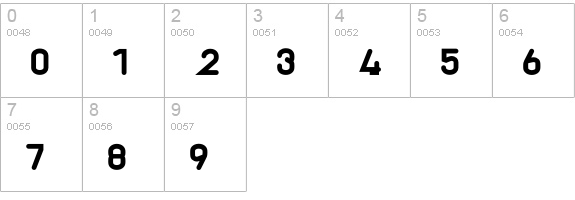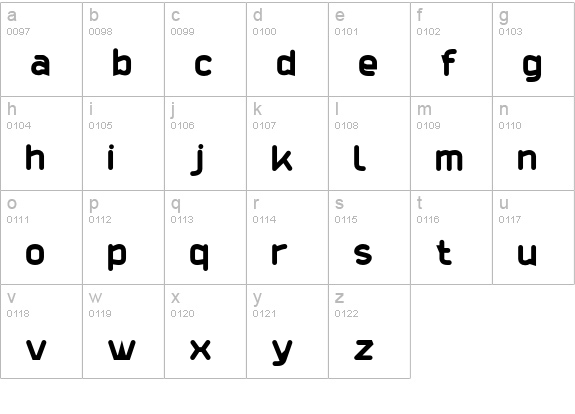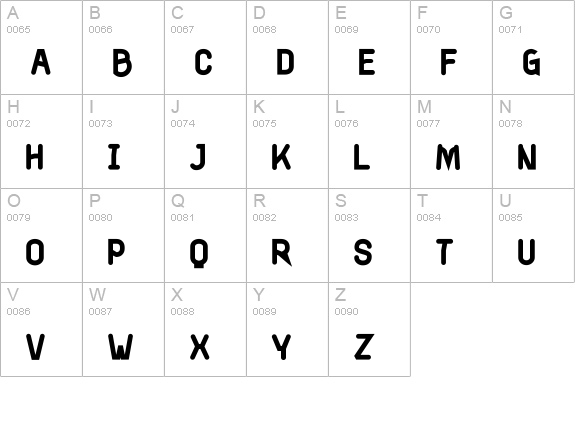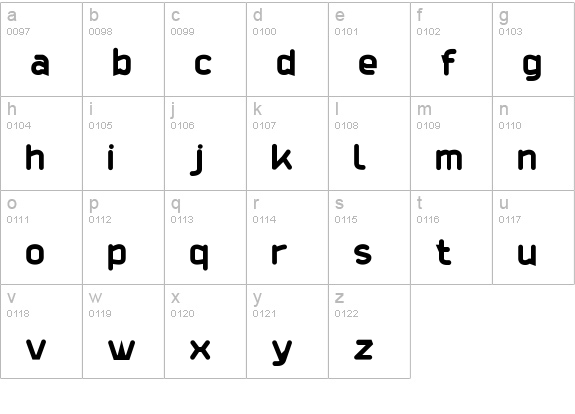
Launderette-Spin Font Details
Introducing the captivating and innovative Launderette-Spin font, a mesmerizing typeface that brings a delightful spin to your design projects. With its unique and quirky design, this font adds a touch of playfulness and vibrancy to any creative endeavor. Launderette-Spin font is not just visually appealing, but also offers a seamless reading experience. Each letter is carefully crafted with intricate details, ensuring legibility without compromising on its distinct personality. Whether used for headlines, logos, posters, or any other design element, this font effortlessly grabs attention and leaves a lasting impression. What sets Launderette-Spin font apart is its versatility. Its dynamic and animated appearance adds a sense of movement and energy to your designs, making them come alive. This font is perfect for projects that require a modern and fresh approach, as it effortlessly captures the essence of contemporary design trends. One of the most enticing aspects of Launderette-Spin font is that it is freely available to download at FontsMarket.com. This means that you can easily access this remarkable typeface and enhance your creative projects without any hassle. Whether you are a professional designer, a student, or simply someone with a passion for creativity, this font empowers you to explore new possibilities and unlock your artistic potential. With its wide range of glyphs and characters, Launderette-Spin font offers immense flexibility and allows you to craft personalized designs that truly reflect your unique style. Its seamless integration with various design software ensures a smooth workflow, enabling you to bring your creative visions to life effortlessly. In summary, Launderette-Spin font is a captivating and versatile typeface that breathes life into your design projects. Its free availability to download at FontsMarket.com makes it easily accessible for everyone, ensuring that creativity knows no bounds. So, dive into the world of Launderette-Spin font and let its enchanting spin transform your designs into works of art.